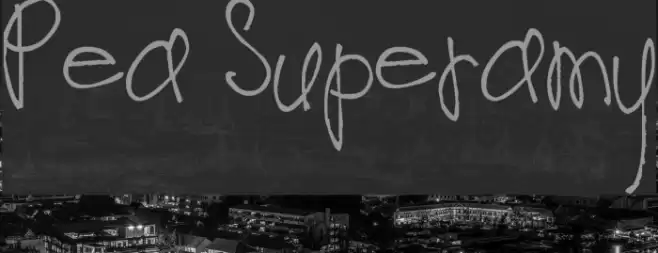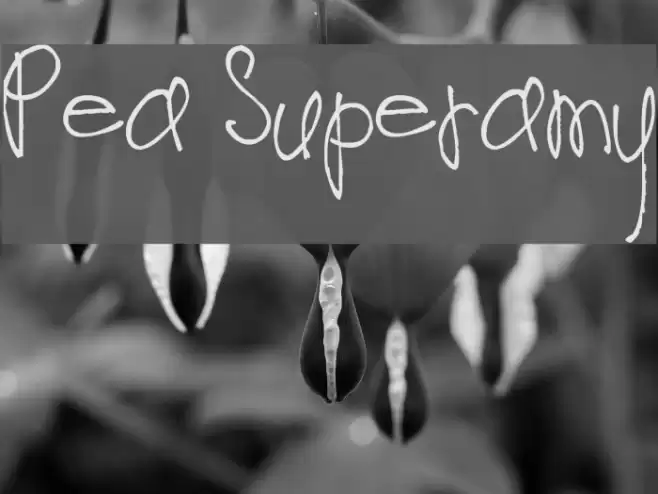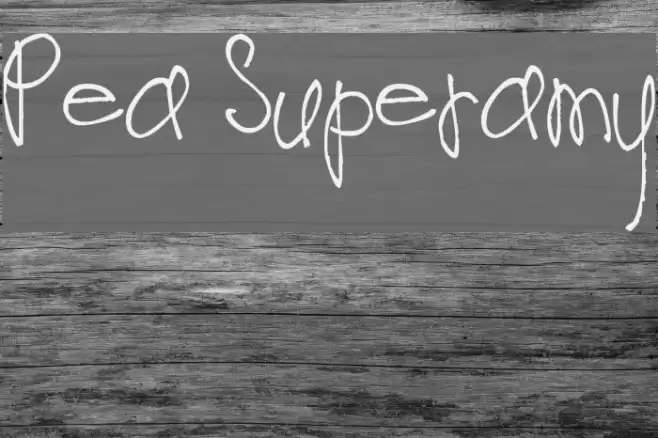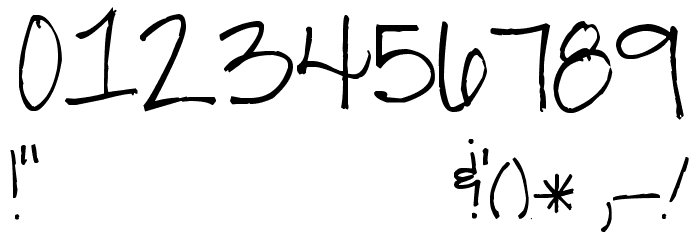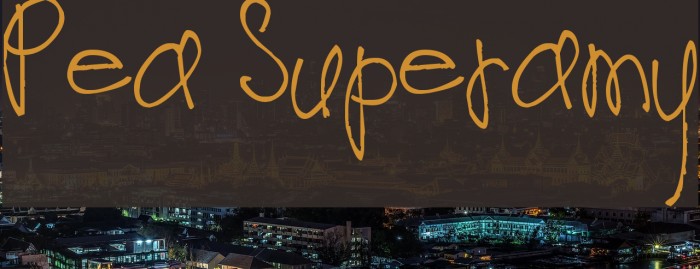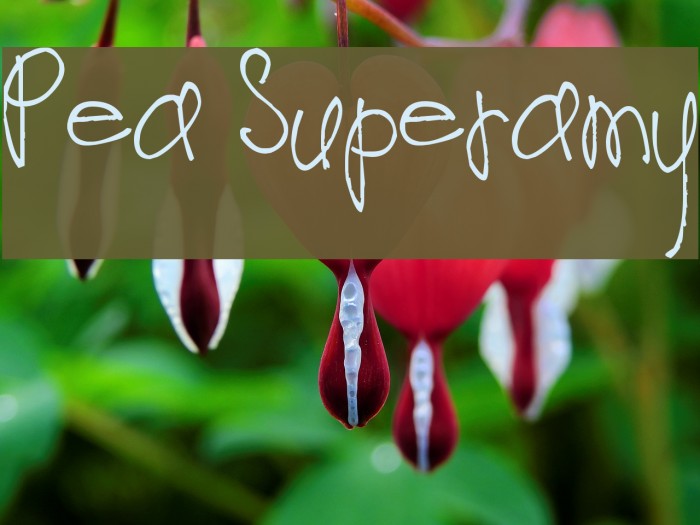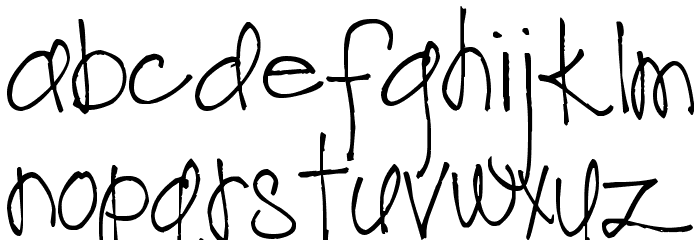
Pea Superamy Font
Pea Superamy Description
This font exudes a playful and casual handwritten style, characterized by its loose and flowing letterforms. The strokes are uneven, giving it a natural and organic feel, reminiscent of a personal note or a friendly message. The uppercase and lowercase letters maintain a consistent style, with a slight slant that adds to its informal charm. The numbers and special characters are crafted with the same whimsical touch, ensuring a cohesive look across all characters. This font is perfect for projects that require a personal, approachable, and friendly tone.
A playful, casual handwritten font with loose, flowing strokes from Uncategorized fonts.
- Proposed Projects: Ideal for greeting cards, personal notes, children's books, and informal branding.
- Overall Style: Casual, Playful
- Use Case: Headlines, Informal text, Personal notes